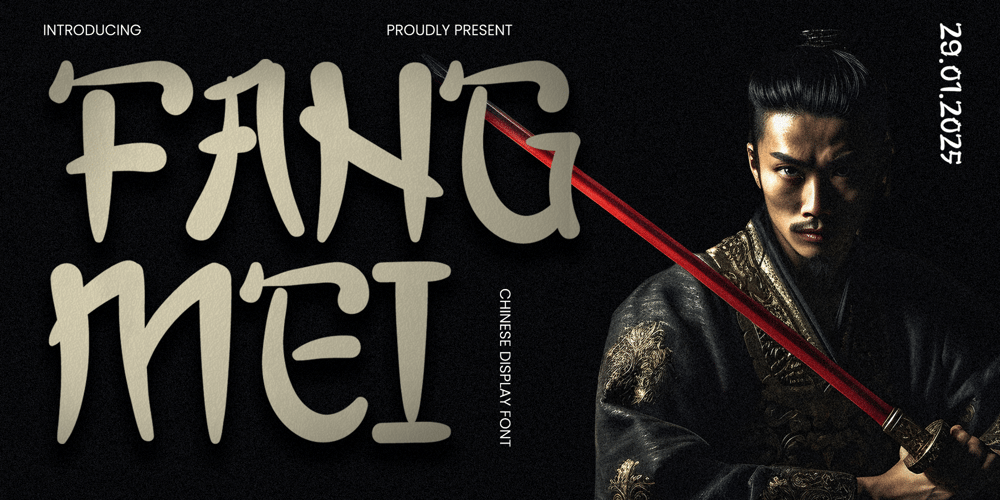
Fangmei Font Family was designed by Muhammad Rizaldi and published by Inviline. Fangmei contains 1 styles and family package options. Chinese display font elegantly merges traditional calligraphy with contemporary design, making it ideal for branding, packaging, and creative projects. Its bold characters and unique flair bring a distinct cultural essence to any visual composition.